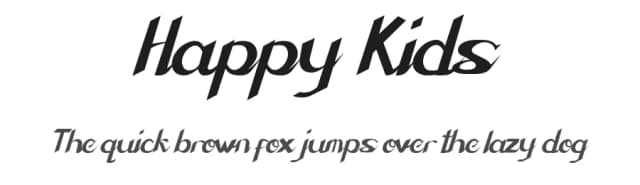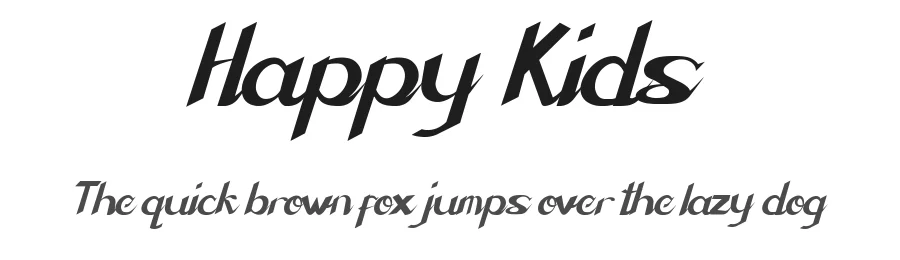
About Mukhair Font
| Designer | Skiiller studio - M irfan mahmudin |
Mukhair Font is a script font that shines as a display or heading face. Pair it with a clean sans-serif or serif font for body text β the contrast creates a clear hierarchy while the two styles stay balanced and easy to read.
Mukhair Font